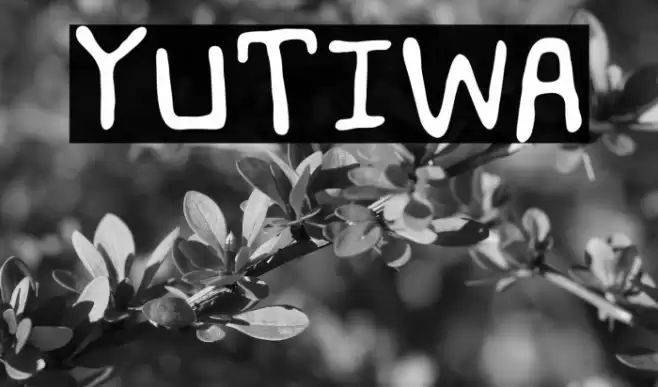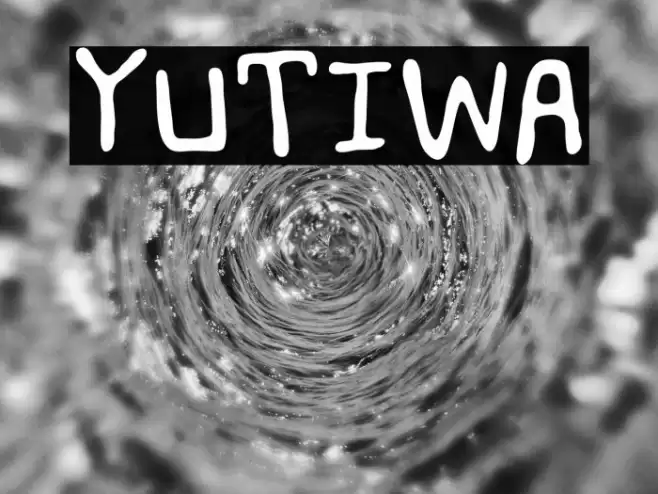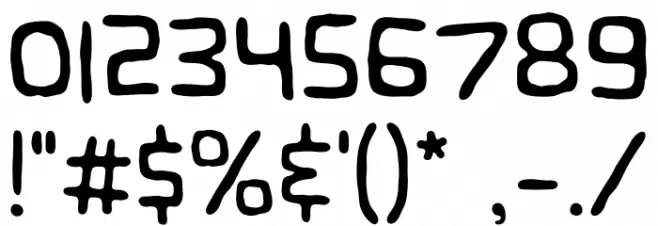
Yutiwa Font
Yutiwa Description
This font features a playful and organic style, characterized by its hand-drawn appearance. The letters have a slightly irregular shape, giving them a whimsical and informal feel. The strokes are bold and rounded, with a consistent thickness throughout, which adds to the font's friendly and approachable nature. The characters are evenly spaced, providing a balanced and harmonious look. This font includes both uppercase and lowercase letters, numerals, and a variety of special characters, making it versatile for different design needs.
A playful, hand-drawn font with bold, rounded strokes and a whimsical feel from Uncategorized fonts.
- Proposed Projects: Ideal for children's books, playful branding, casual invitations, and creative posters.
- Overall Style: Playful